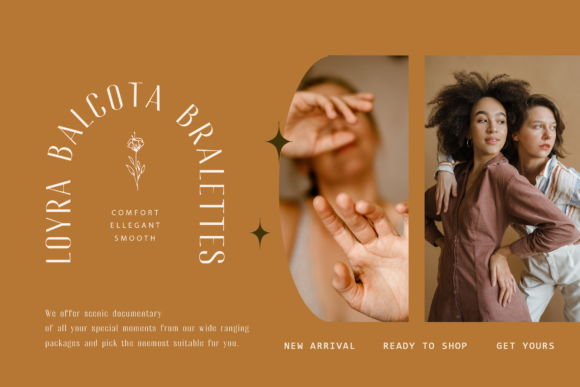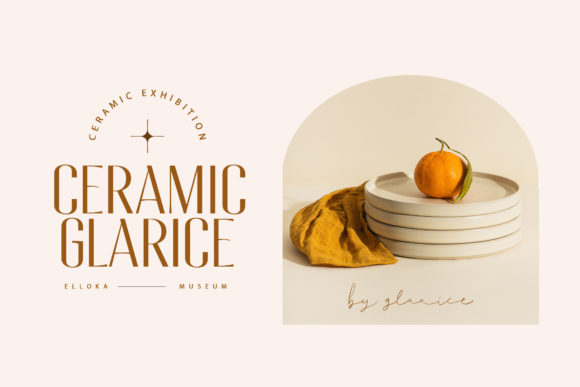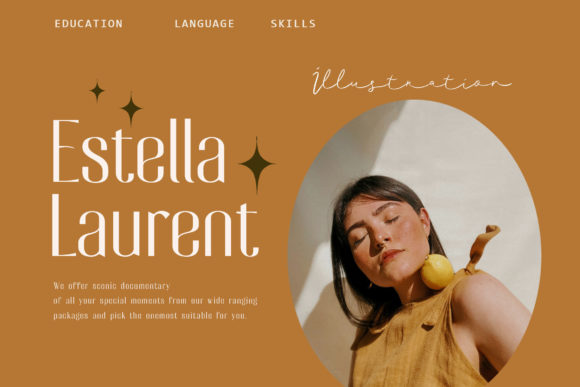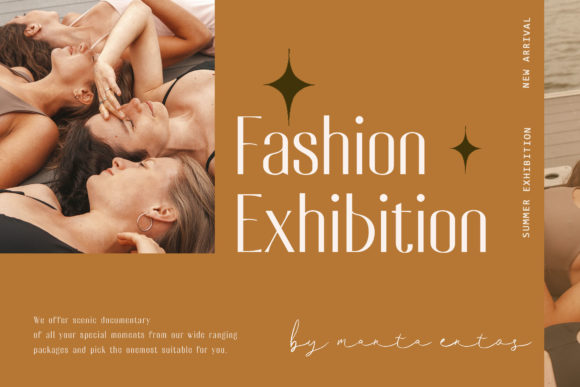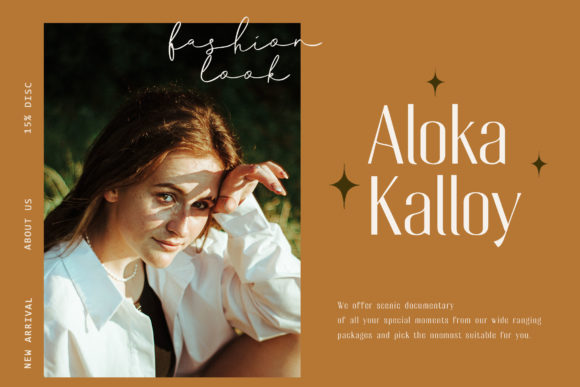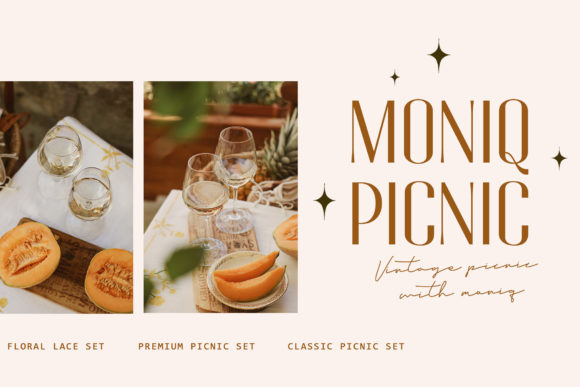
Introduction to Belly and Park Font
Have you ever been scrolling through your favorite design inspiration board, and suddenly, a stunning typography catches your eye? That’s exactly what happened to me when I stumbled upon the Belly and Park Font. Its sleek, condensed design and vintage charm immediately caught my attention, and I knew I had to dive deeper into this beautiful font.
As a designer, I’m always on the lookout for high-quality design resources that can elevate my creative projects. The Belly and Park Font is one such treasure, offering a unique combination of style and versatility that makes it perfect for a wide range of applications. Whether you’re working on a luxury logo, a classy editorial design, or a cosmetic brand, this font is sure to impress.
Key Features of Belly and Park Font
- Unique, modern design with a transparent background
- Supports a wide range of languages and characters
Honest Review: Belly and Park Font
- ✨ Clean and minimalist design aesthetic that’s easy on the eyes
- ✨ Transparent background, making it versatile for any design project
- ✨ High-quality vector files that are scalable without losing any detail
- ⚠️ Limited font styles and variations, which may not be suitable for complex designs
- ⚠️ May not be as customizable as some other fonts, which can be a drawback for designers who want complete control
How to Use Belly and Park Font
The Belly and Park Font is a high-quality design resource ideal for creative projects that require a unique touch. This versatile font features a transparent background, making it easy to use in various design applications.
Tips for Getting the Most Out of Belly and Park Font
For the best results, use Belly and Park Font in conjunction with other design elements, such as images and graphics. Experiment with different font sizes, colors, and styles to create a unique visual identity.
Belly and Park Font is perfect for creative projects, including logos, graphics, presentations, social media posts, and documents. Its unique design and transparent background make it an ideal choice for designers and non-designers alike.
Q: Can I customize the Belly and Park Font for my specific design needs?
While the Belly and Park Font is a high-quality design resource, it is not a fully customizable font. However, you can use font editors or design software to modify the font to suit your specific design needs. Keep in mind that any modifications may affect the font’s overall quality and compatibility.